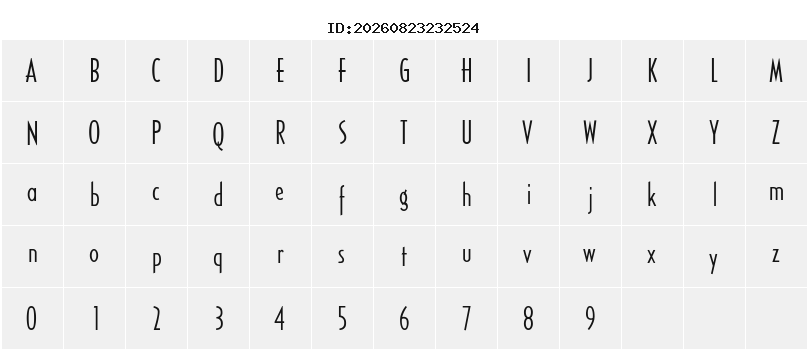
SandyhillConden Preview
• Font Name: SandyhillConden
• Full Font Name: SandyhillConden
About SandyhillConden.ttf
SandyhillConden.ttf is a modern, elegant sans-serif font designed for ultimate readability and visual harmony. Perfect for branding, headlines, web design, and print materials.